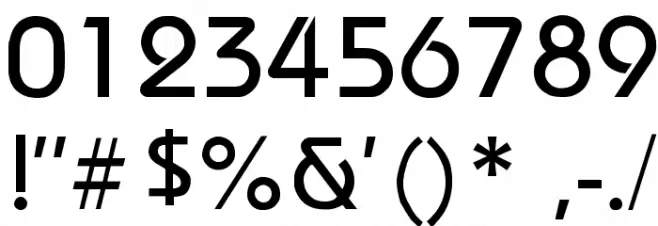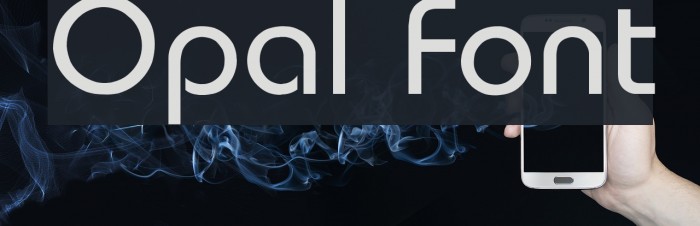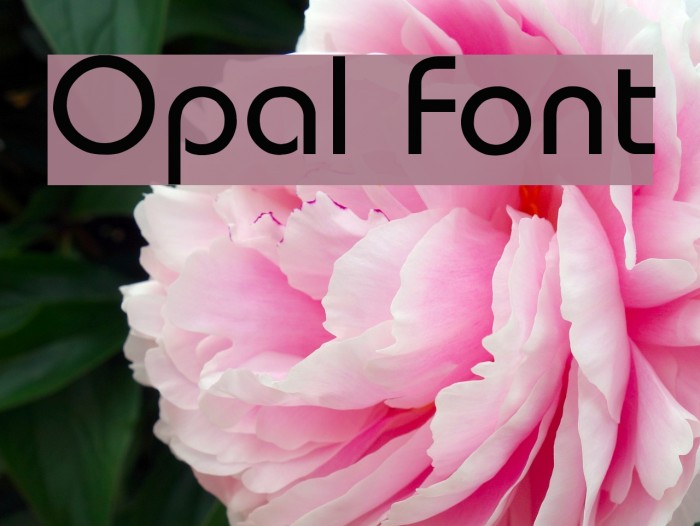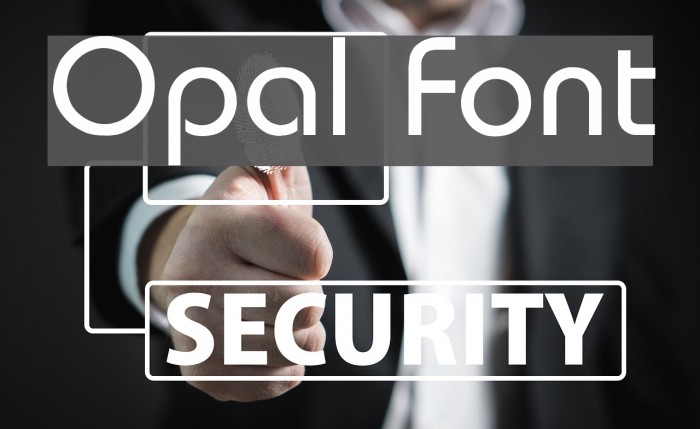
Opal Font
Opal Description
This font features a modern and clean design with a geometric sans-serif style. The characters are well-balanced with a consistent stroke width, giving it a uniform appearance. The uppercase letters are bold and assertive, while the lowercase letters maintain a friendly and approachable look. The numerals are clear and easy to read, making them suitable for various applications. Special characters are distinct and harmonize well with the overall design, ensuring versatility in usage.
A modern geometric sans-serif font with a clean and uniform appearance from Decorative fonts.
- Proposed Projects: Ideal for branding, digital interfaces, advertising, and editorial design due to its clarity and modern aesthetic.